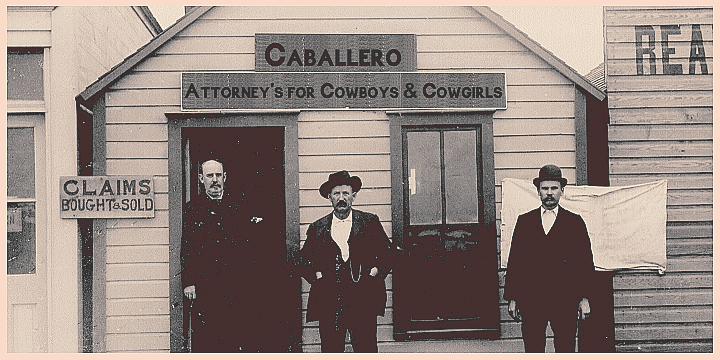
Caballero, when you really need to punch hard. An uppercase lowercase is what you need to get your point across.
What was the inspiration for designing the font? I really wanted a design that speaks out even when using lower case. I wanted it to be loud and pushy.
What are its main characteristics and features? An uppercase lowercase. More…
Usage recommendations: Great for posters that want to say something loud.
Caballero
Caballero Italic
Caballero Outline